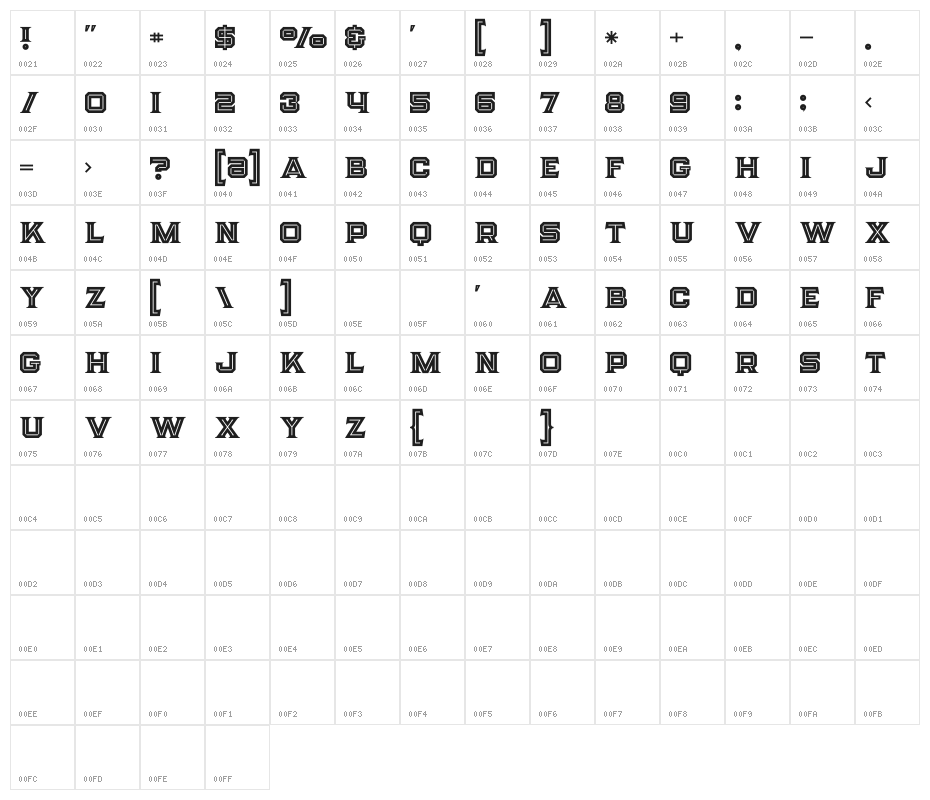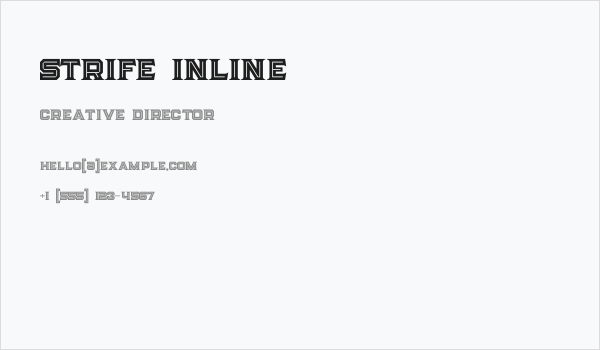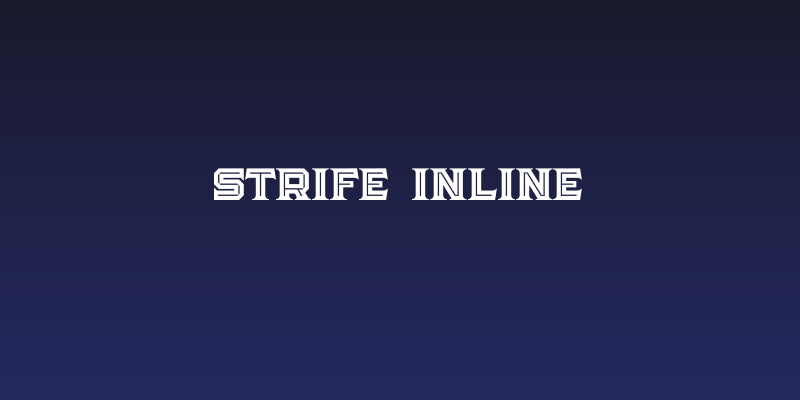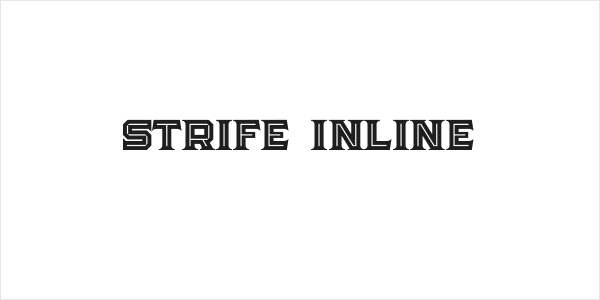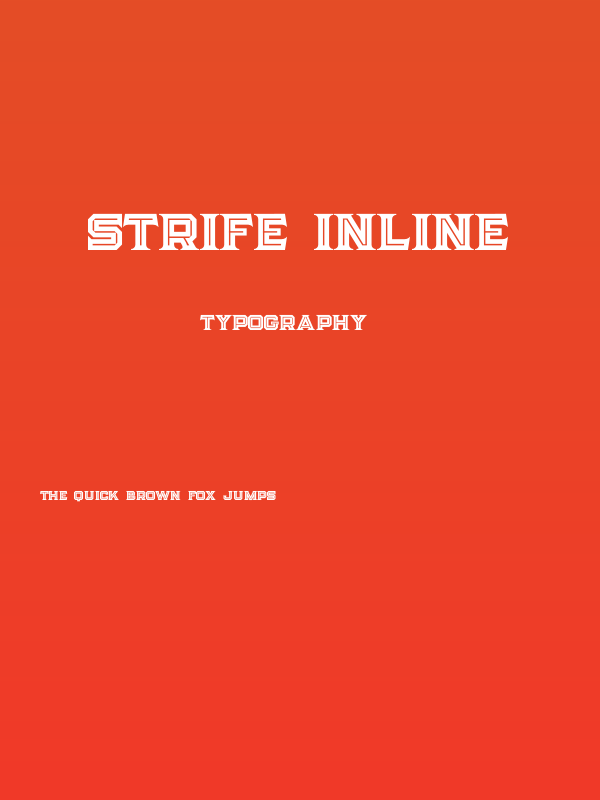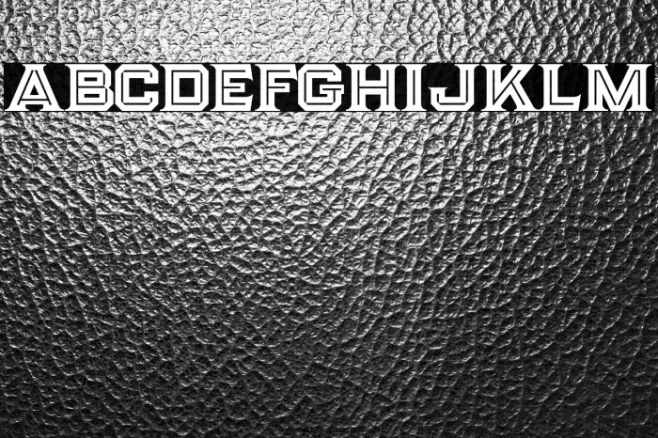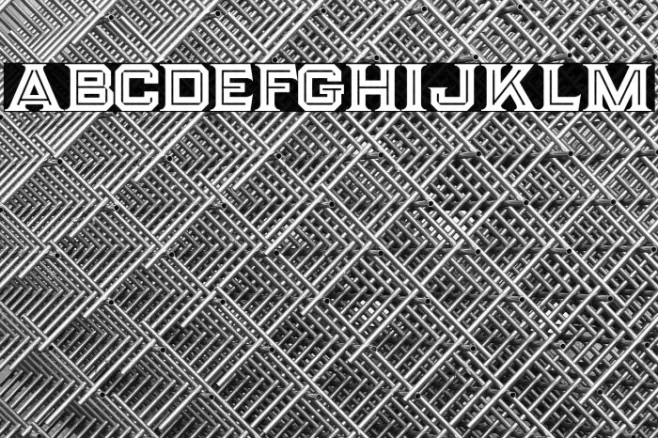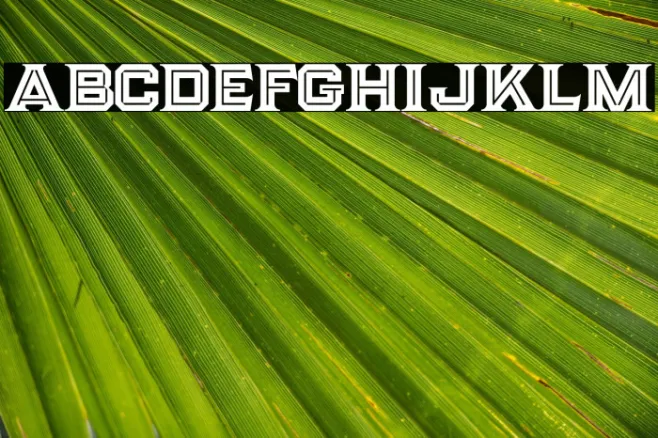
Strife Inline Font
Strife Inline Description
This font features a bold, inline design with a strong geometric structure. The uppercase letters are characterized by sharp angles and a distinct inline cutout that adds depth and dimension. The numbers and special characters maintain this bold style, ensuring consistency across all glyphs. The font's design is reminiscent of industrial or futuristic themes, making it suitable for projects that require a strong visual impact. Its boldness and unique inline feature make it stand out, while the consistent stroke width ensures readability.
| Proposed Projects | Ideal for branding, posters, video game titles, and any project requiring a strong, industrial aesthetic. |